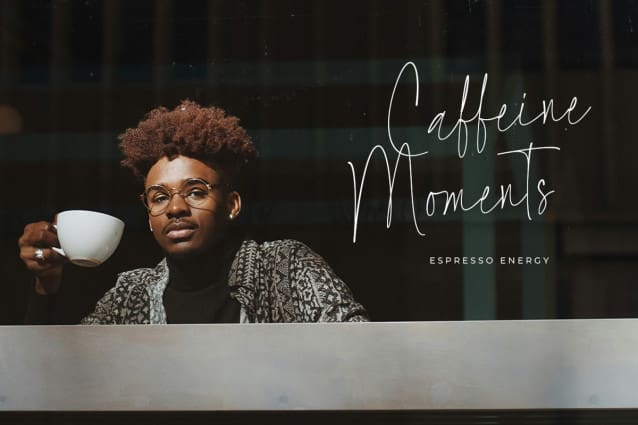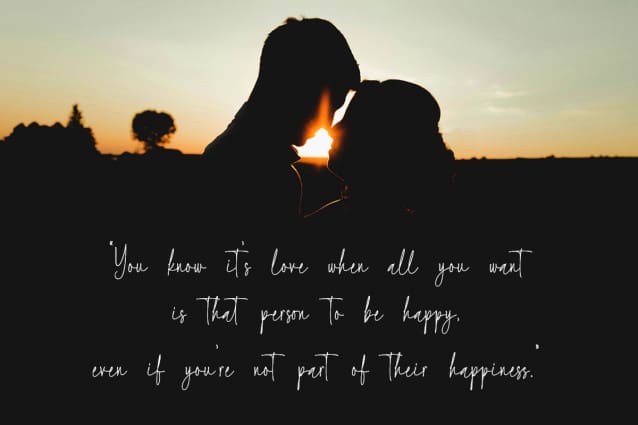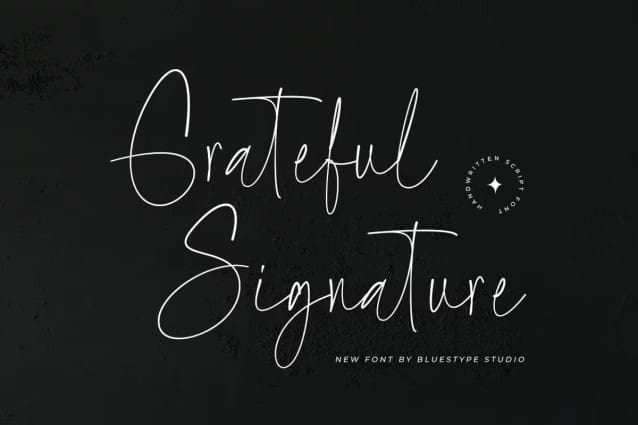
Grateful Signature Font
Grateful Signature Font is a stunning and elegant script font that embodies the beauty and grace of handwritten signatures. Its flowing, delicate strokes create a sophisticated and personal touch, making it perfect for branding, invitations, logos, and any design that seeks to evoke a sense of charm and refinement.
With its timeless appeal, Grateful Signature brings a blend of modern elegance and classic beauty to every project, leaving a lasting impression.